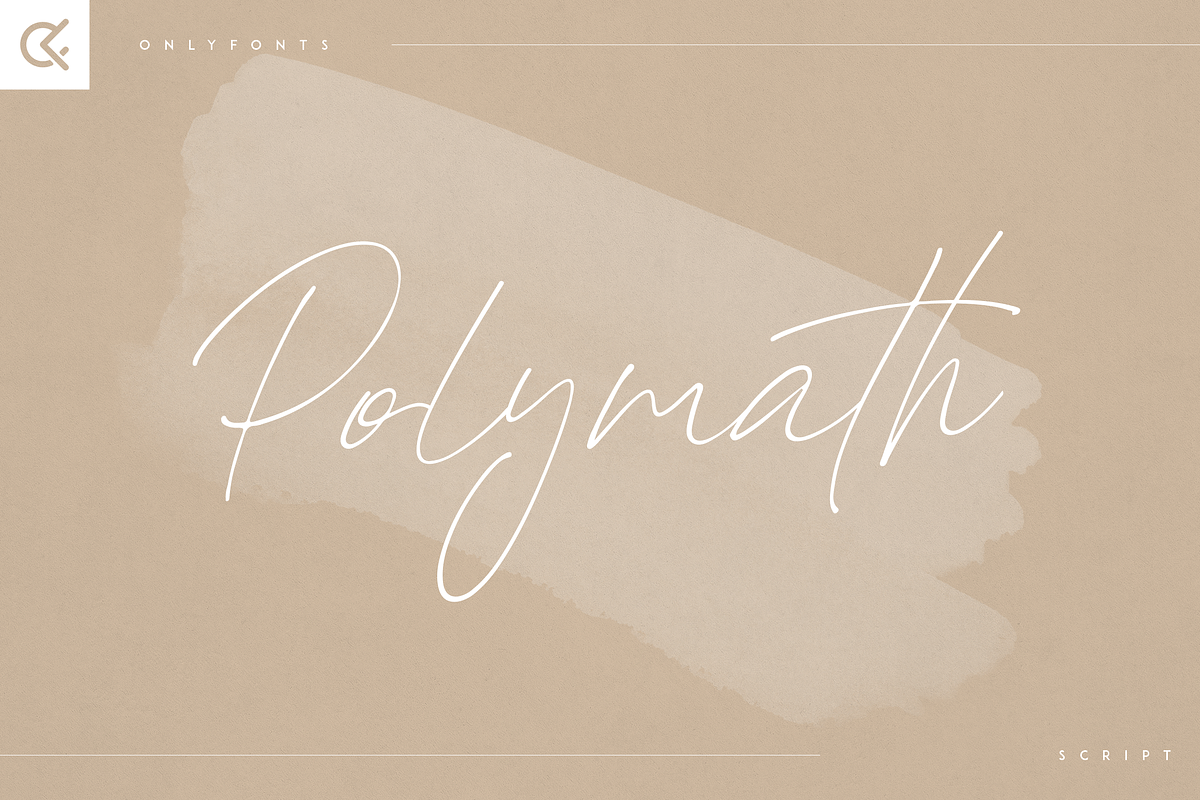
Polymath Organic Script Font Free Download is a naturally flowing, hand-drawn typeface that brings warmth, authenticity, and a touch of rustic charm to your designs. Inspired by organic handwriting and creative brush strokes, this font is perfect for eco-friendly branding, artisan packaging, lifestyle blogs, wedding invitations, and earthy product labels.
Its smooth, flowing curves and natural letterforms make it feel personal and approachable, while still maintaining a professional polish. Polymath comes with ligatures and stylistic alternates, allowing you to create custom-feel typography effortlessly.
Whether you're crafting something heartfelt or handmade, Polymath Organic Script Font Free Download is a beautiful choice. Try the free version today and bring an authentic, earthy vibe to your next creative project.